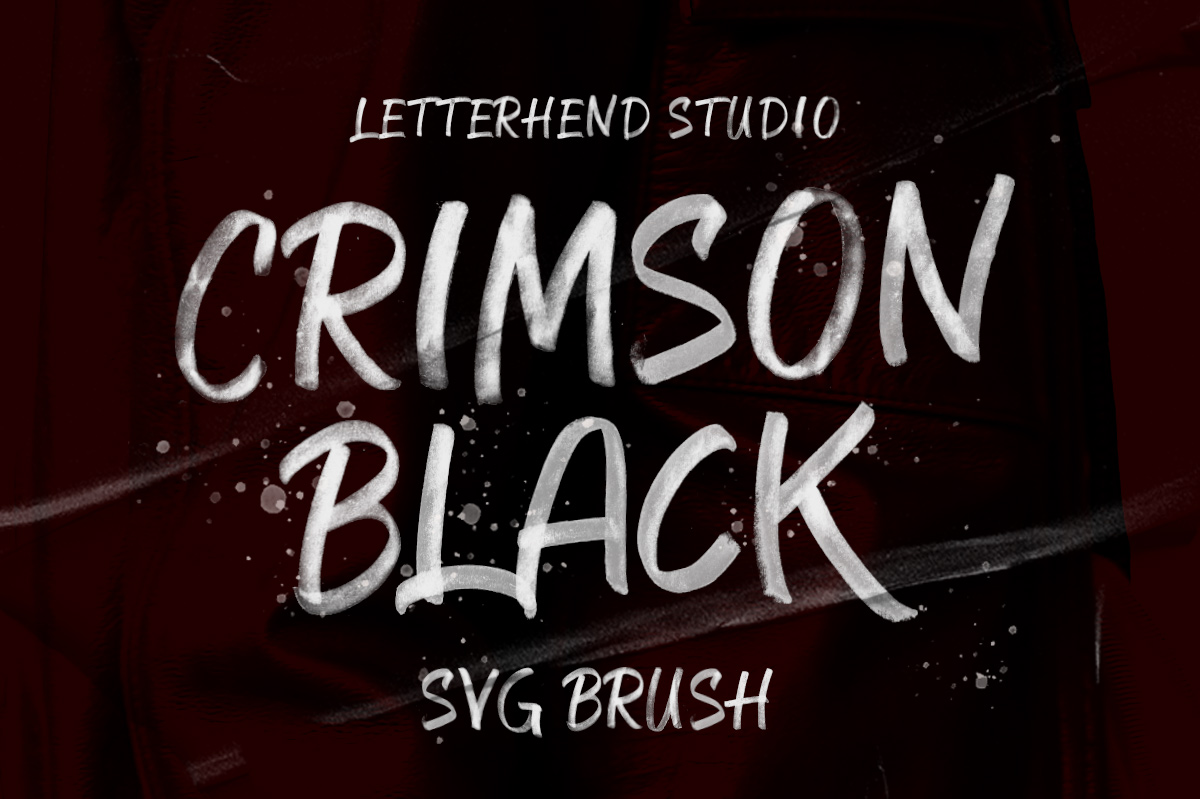
Crimson Black Font
Perfect for bold branding, posters, headlines, merchandise, sports team logos, and social media graphics.
The Crimson Black Font excites designers with its heavy, commanding letterforms and modern edge that make a strong visual impact in both print and digital media.
The Crimson Black Font Free Download is a powerful display typeface built to capture attention instantly. Its thick strokes and sharp lines deliver an assertive, confident look perfect for designs that need to stand out. Whether for sports branding, event posters, or product packaging, Crimson Black makes every word feel stronger.
One of the key strengths of Crimson Black Font is its ability to combine strength with clarity. Even at large sizes, it remains easy to read while maintaining its bold, eye-catching presence.
In branding, Crimson Black communicates power, confidence, and modern style. It pairs perfectly with high-contrast colors, minimalist layouts, and dynamic compositions to create a fearless, impactful identity.
For digital projects, this font enhances website banners, ad creatives, and social media posts with its striking style. Its solid letterforms ensure your message stands out in any feed or screen.